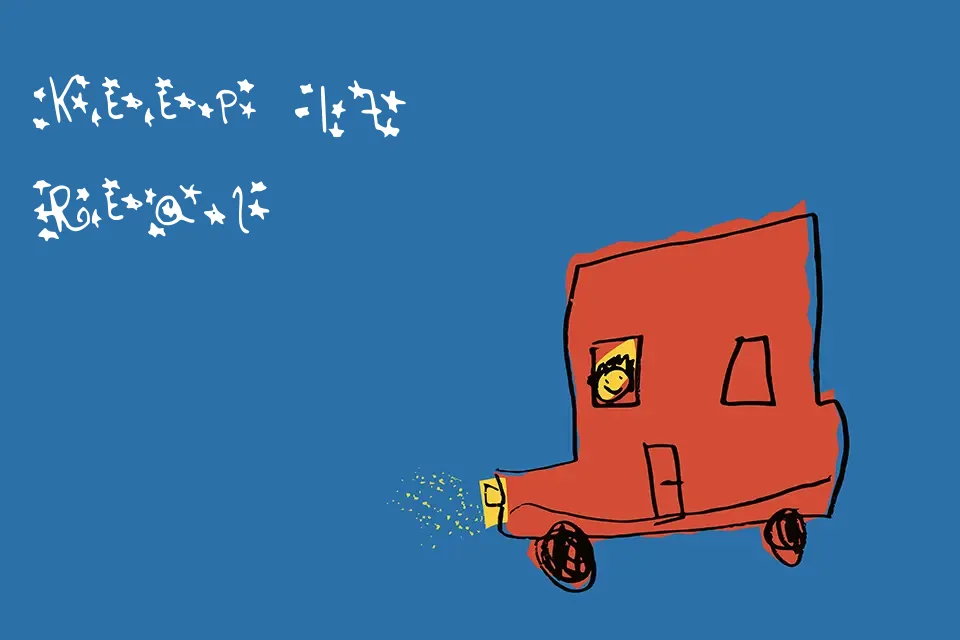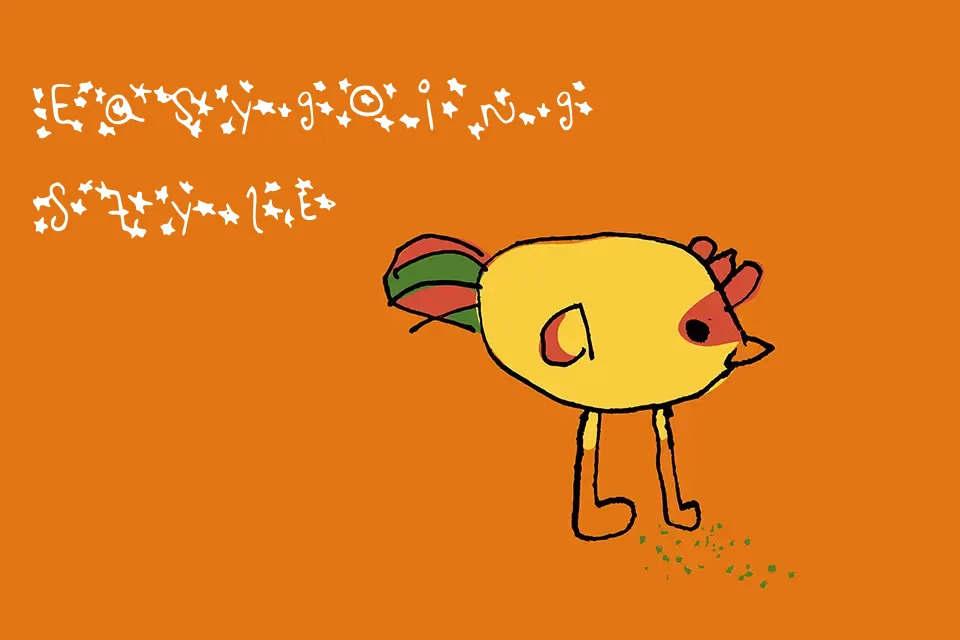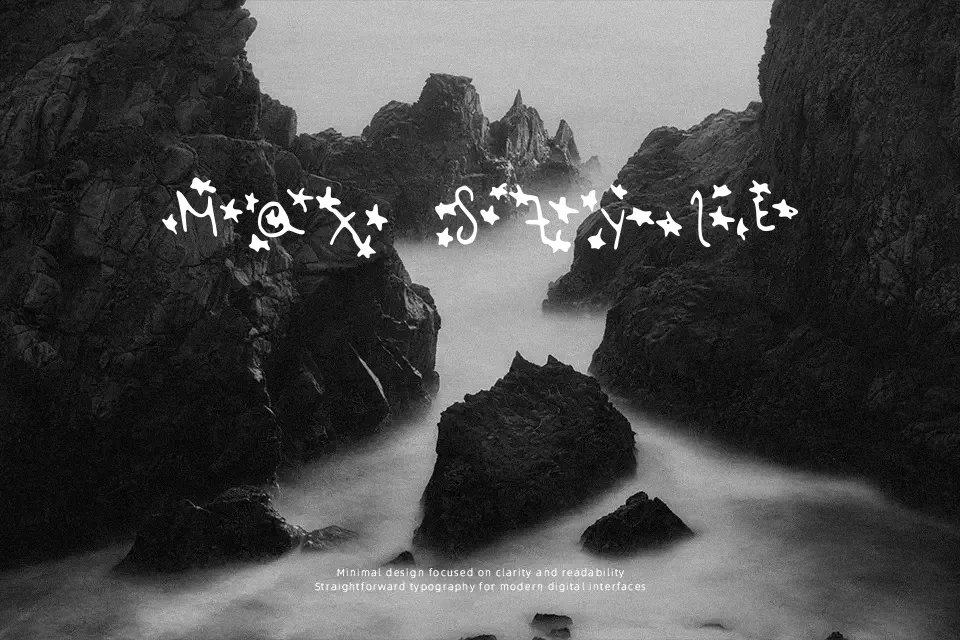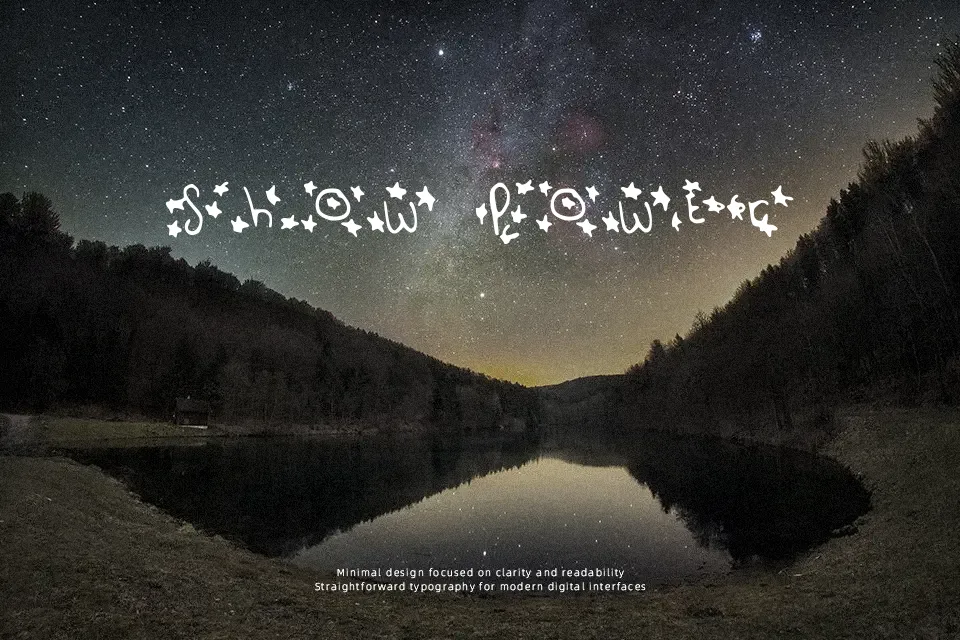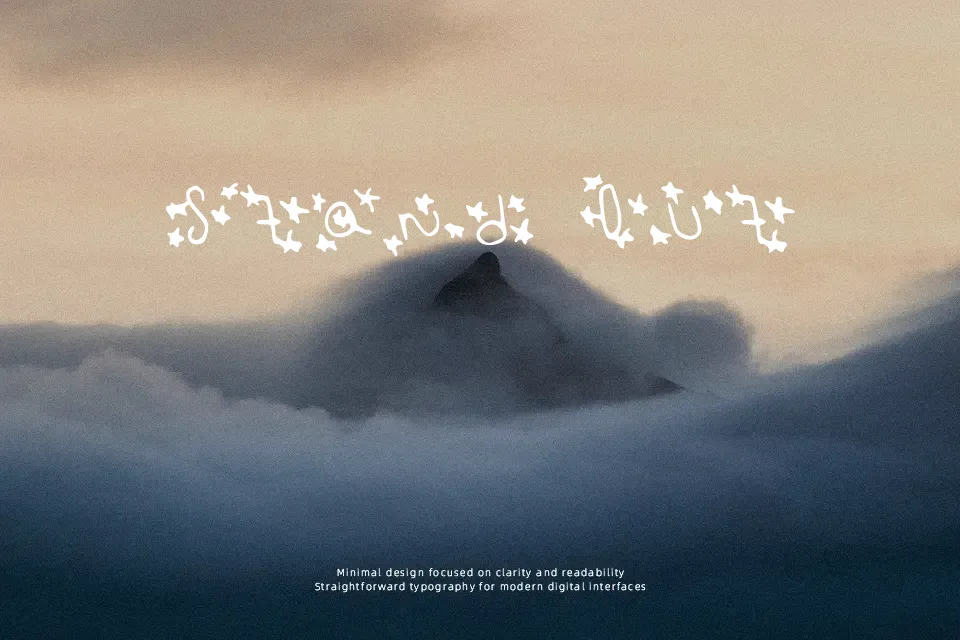
Starstrukk Font
Designed by Banana Jim
Starstrukk Font features expressive hand-drawn glyphs embellished with playful star motifs across its primary character structures. The uneven stroke thickness and relaxed proportions give the typeface an energetic, craft-like aesthetic with noticeable organic variation between individual characters. Generous internal spacing prevents the decorative star cutouts from collapsing into solid shapes when rendered across medium to large scales. The letterforms deliver immediate personality in event flyers, whimsical product packaging, and creative apparel graphics. However, the complex interior decorations and informal alignments reduce legibility in extended text settings. This design is unsuitable for dense body paragraphs or small interface labels, where its ornamental features quickly create visual clutter.
Best For: children’s book covers,party invitations,event posters,creative merchandise
Not Ideal For: continuous body paragraphs,dense technical documents,small mobile interface text
Perfect for branding, headline, and kids, with a artistic and decorative style.